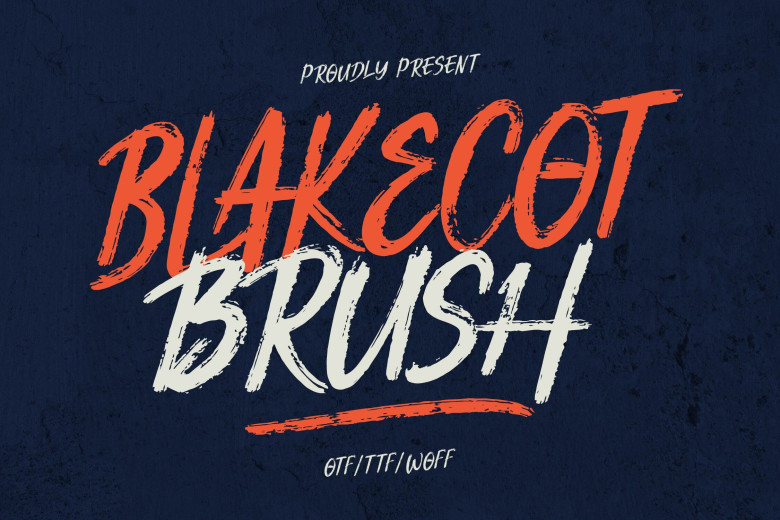
Blakecot Brush Font
Blakecot Brush font that looks quite handwritten is Blakecot Brush. That’s really nice and looks quite natural, as if the flow of the font was designed; can be used to personalise one’s designs.